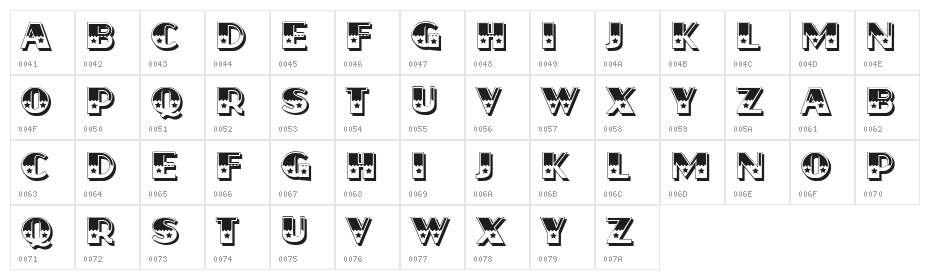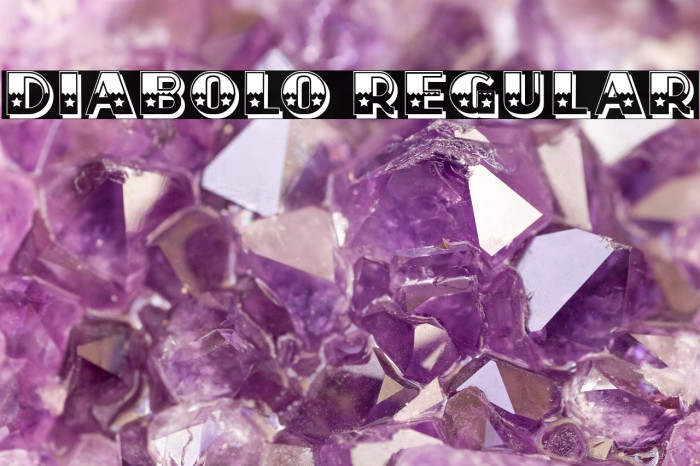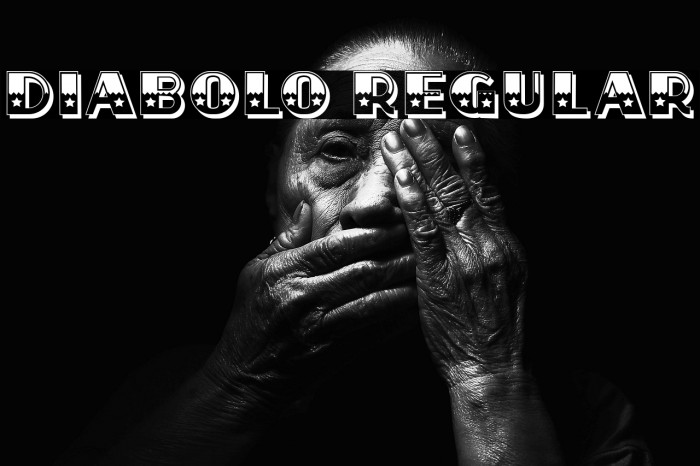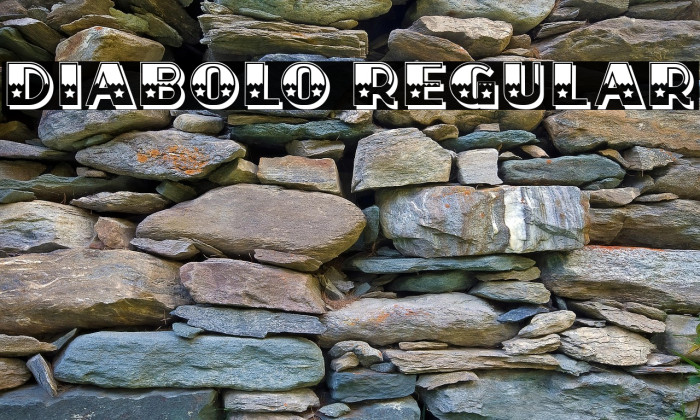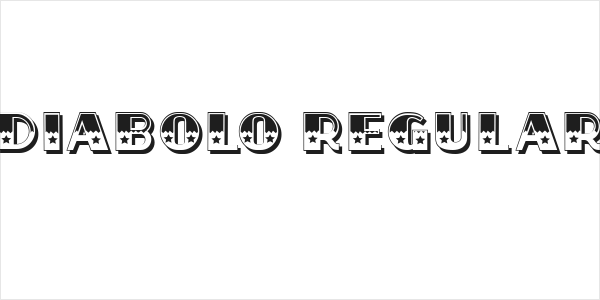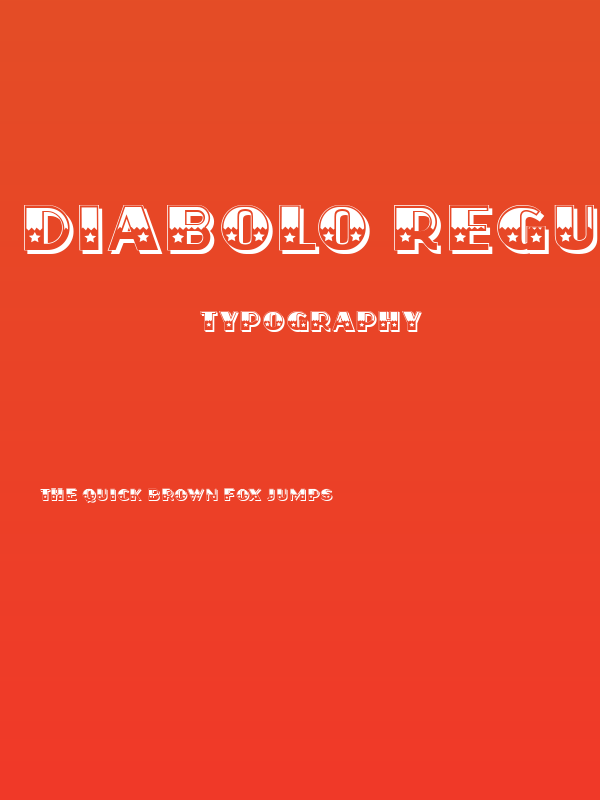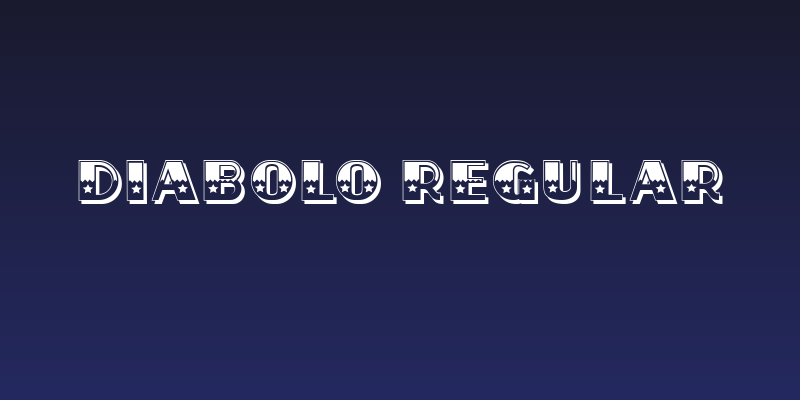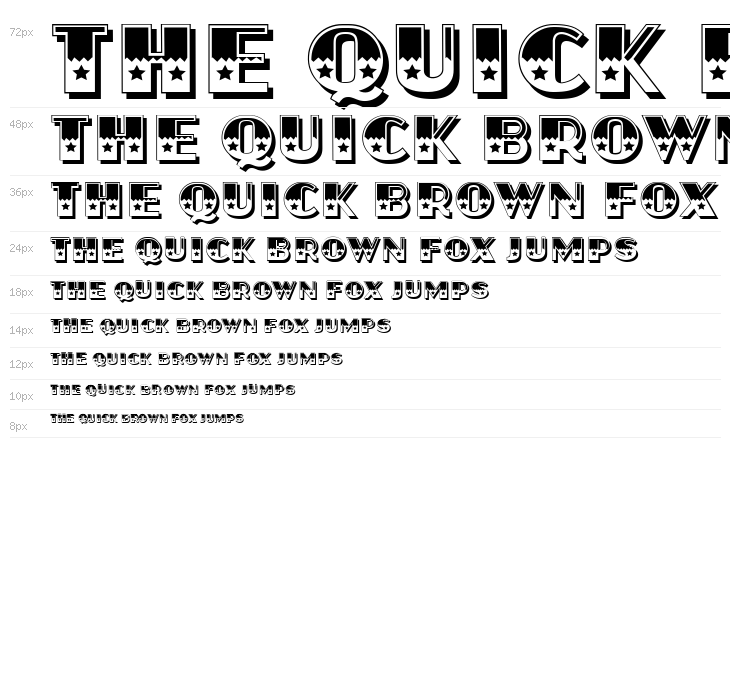
Diabolo Regular Font
This font features a bold and playful design with a unique star pattern embedded within each character. The letters are outlined with a thick black border, giving them a three-dimensional appearance. The interior of each letter is filled with a series of stars, creating a whimsical and eye-catching effect. The overall style is decorative and highly stylized, making it ideal for projects that require a fun and engaging visual element. The uppercase letters are uniform in height, and the font maintains consistent spacing between characters, ensuring readability despite its intricate design.
| Proposed Projects | Ideal for children's book covers, party invitations, posters, and any project needing a playful and decorative touch. |